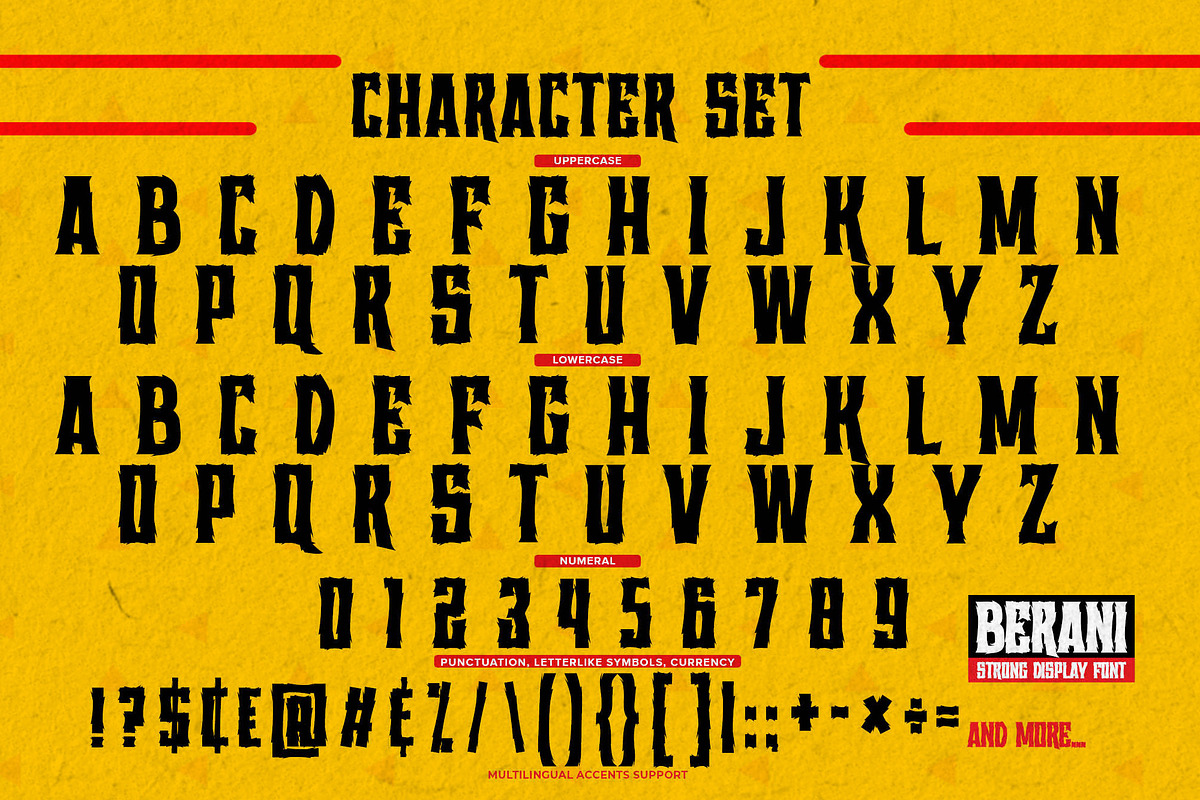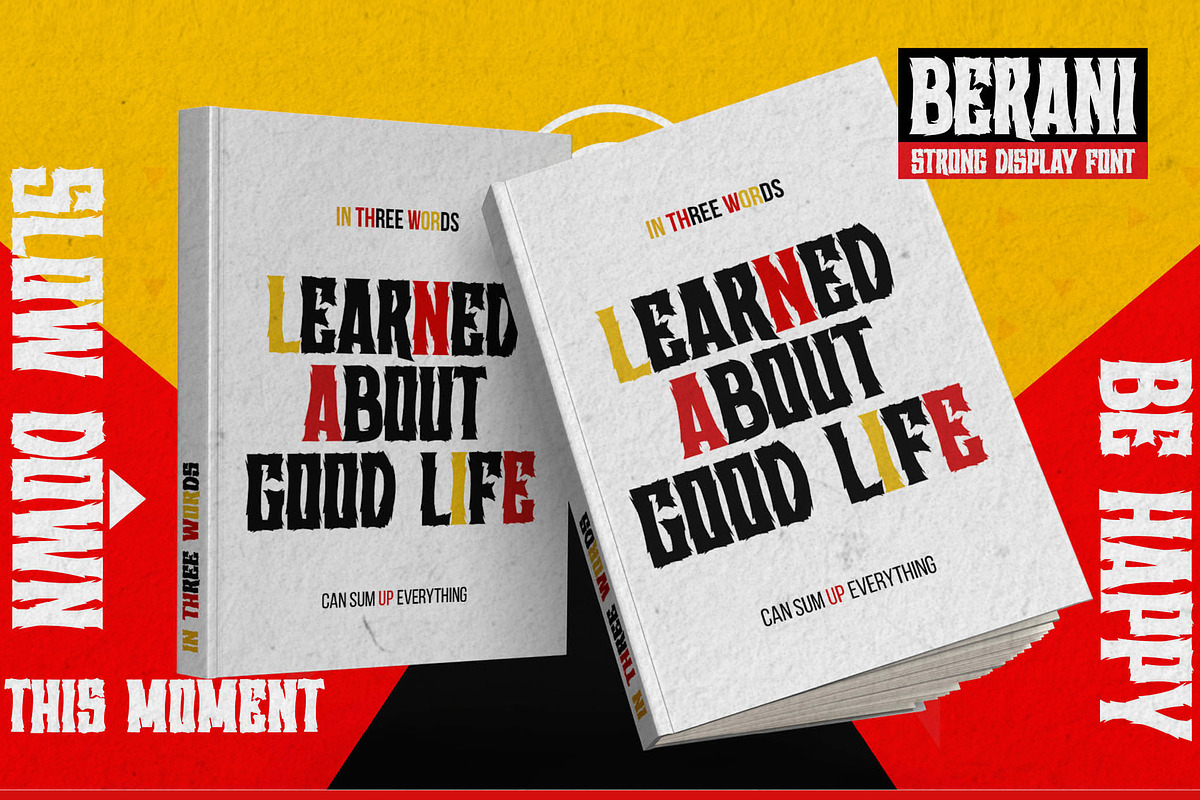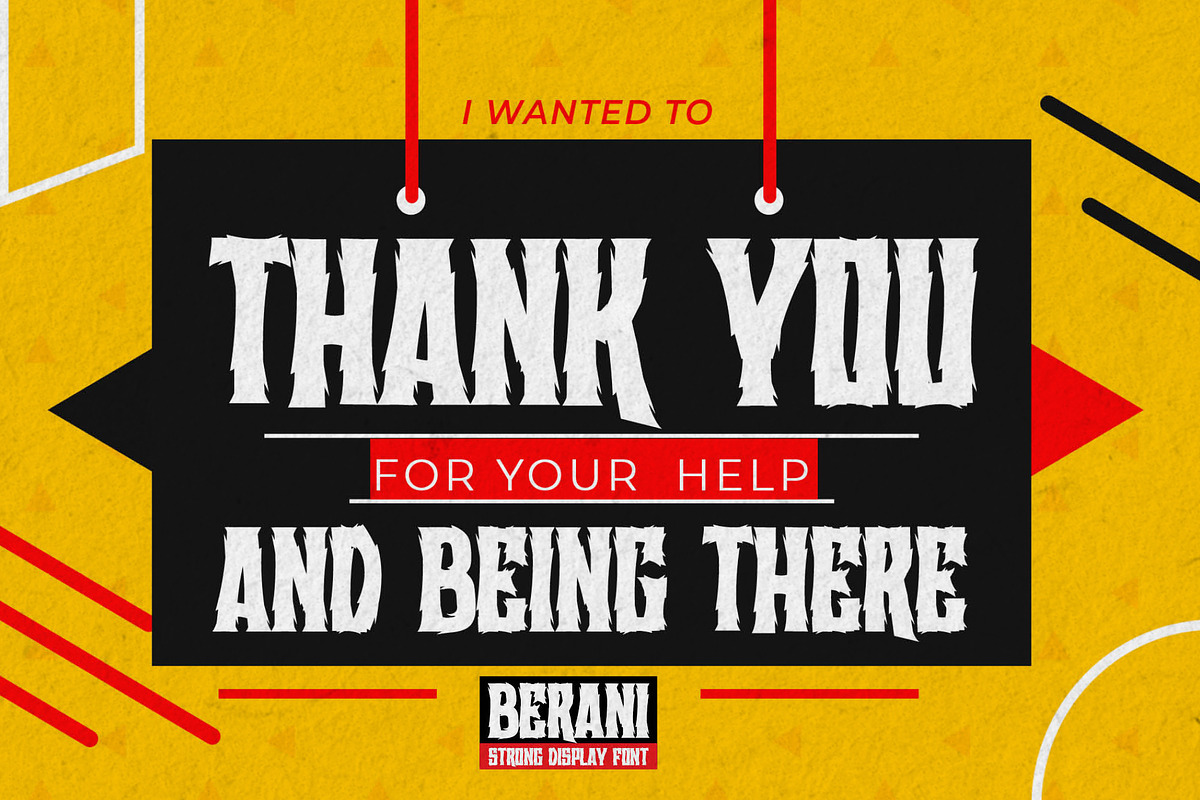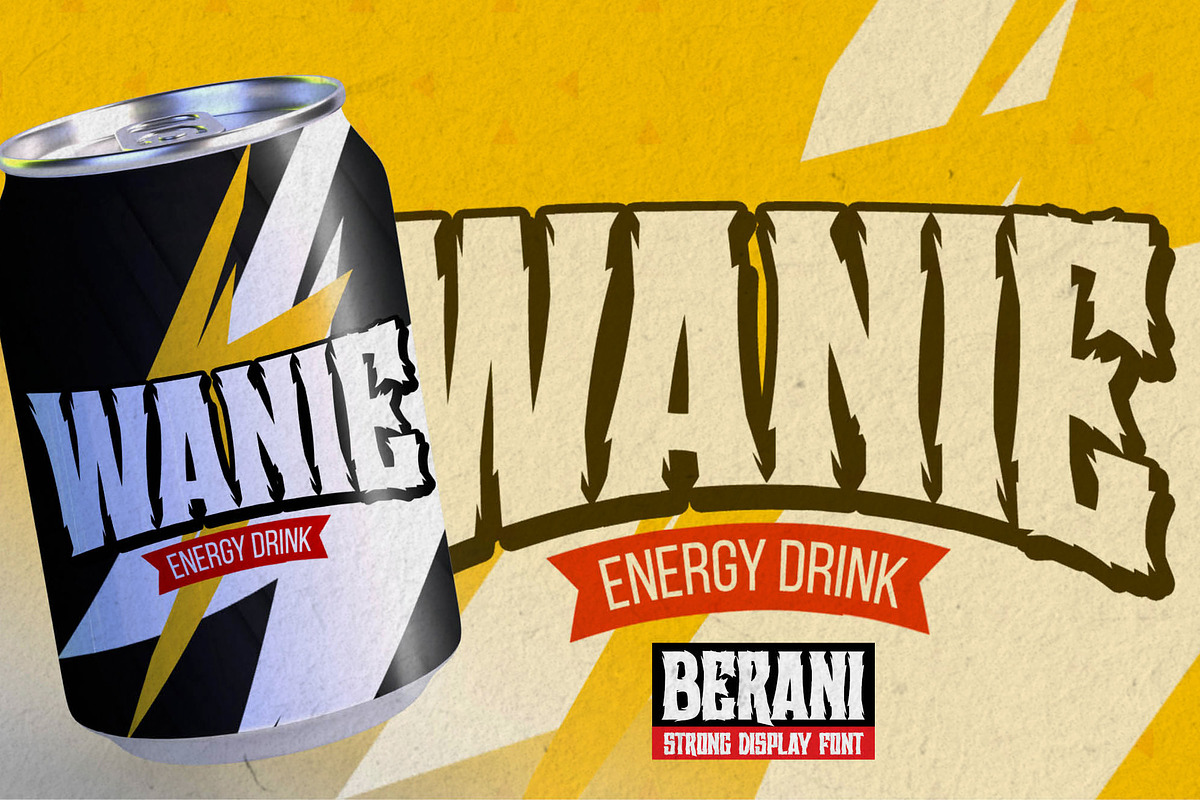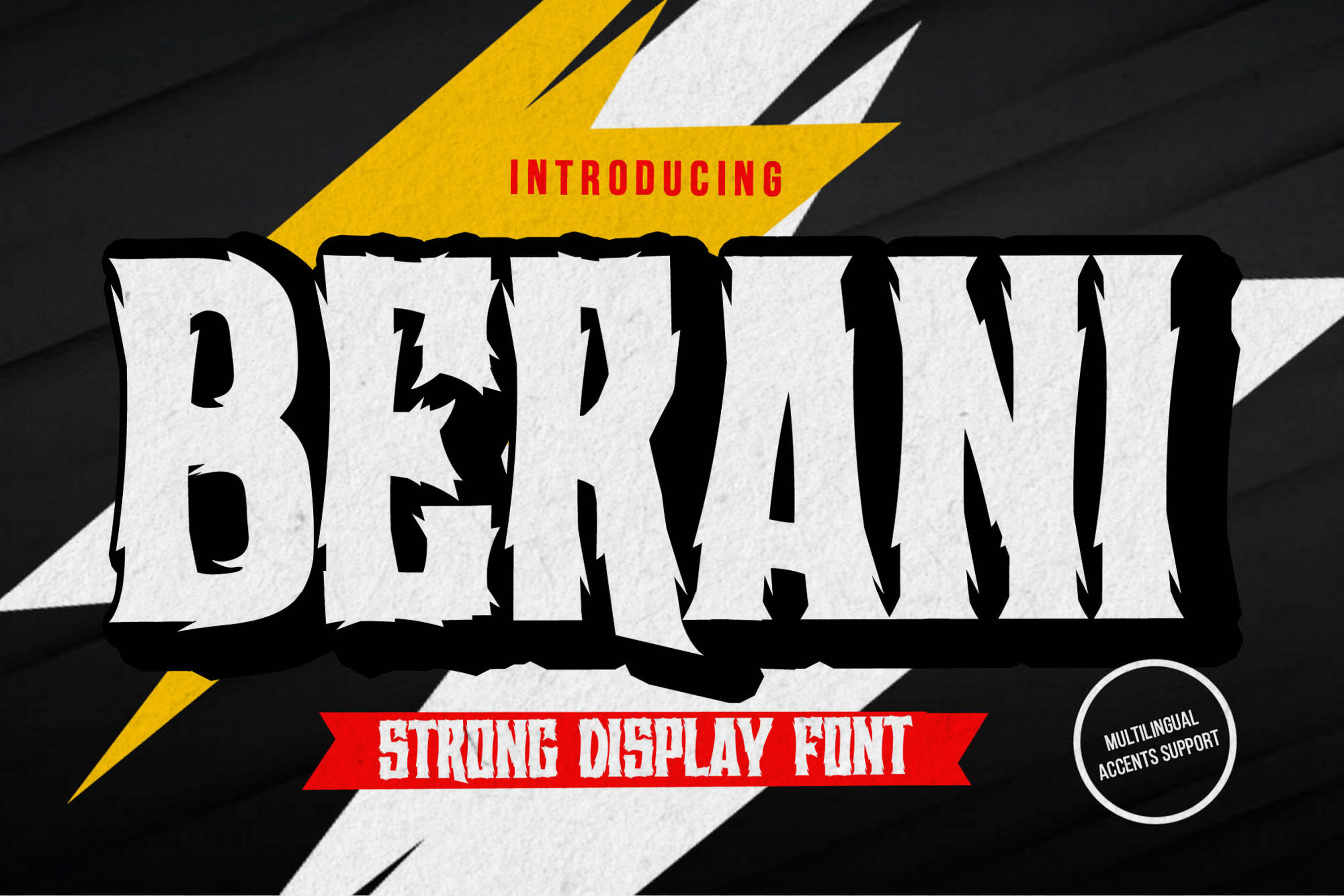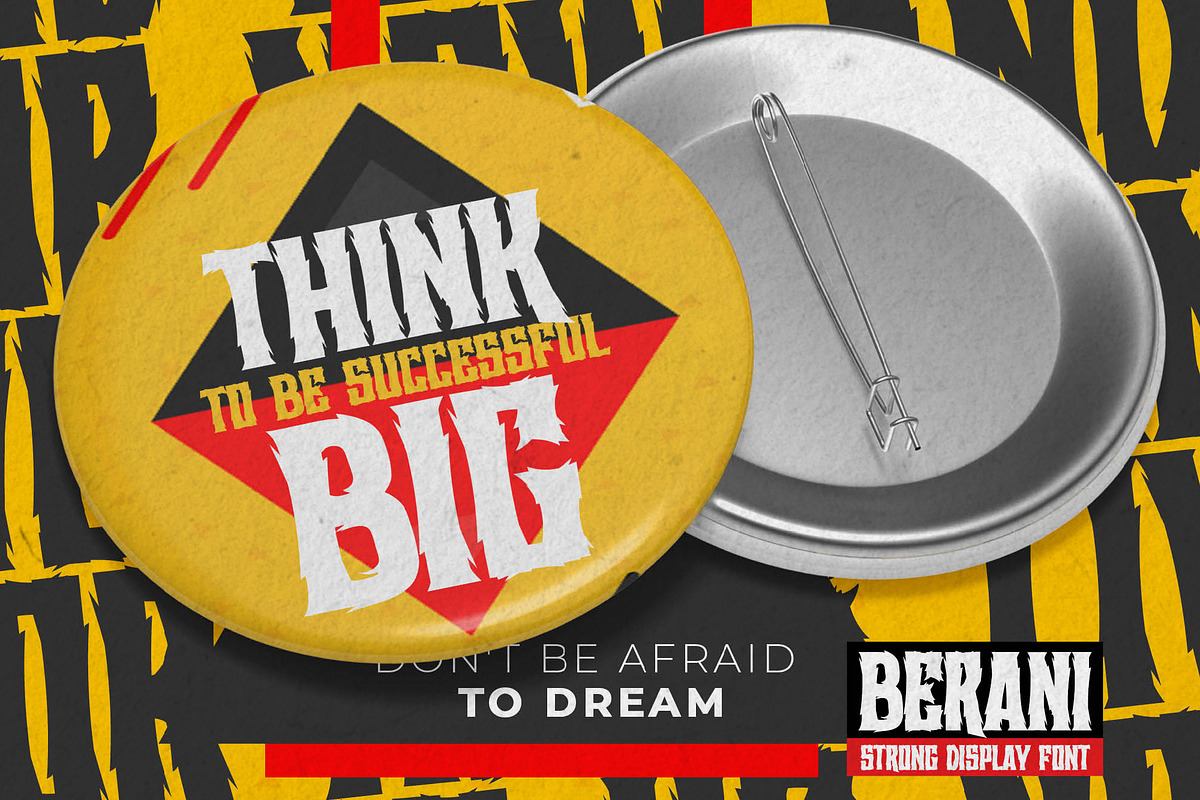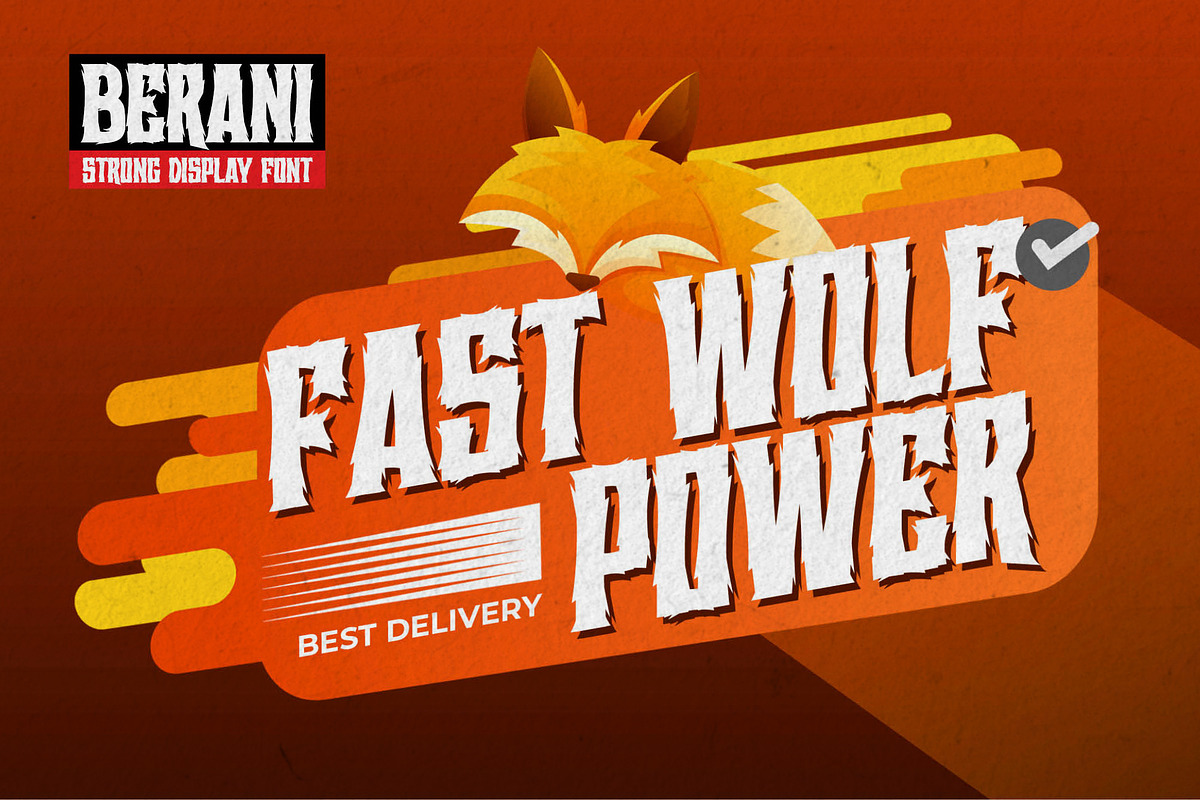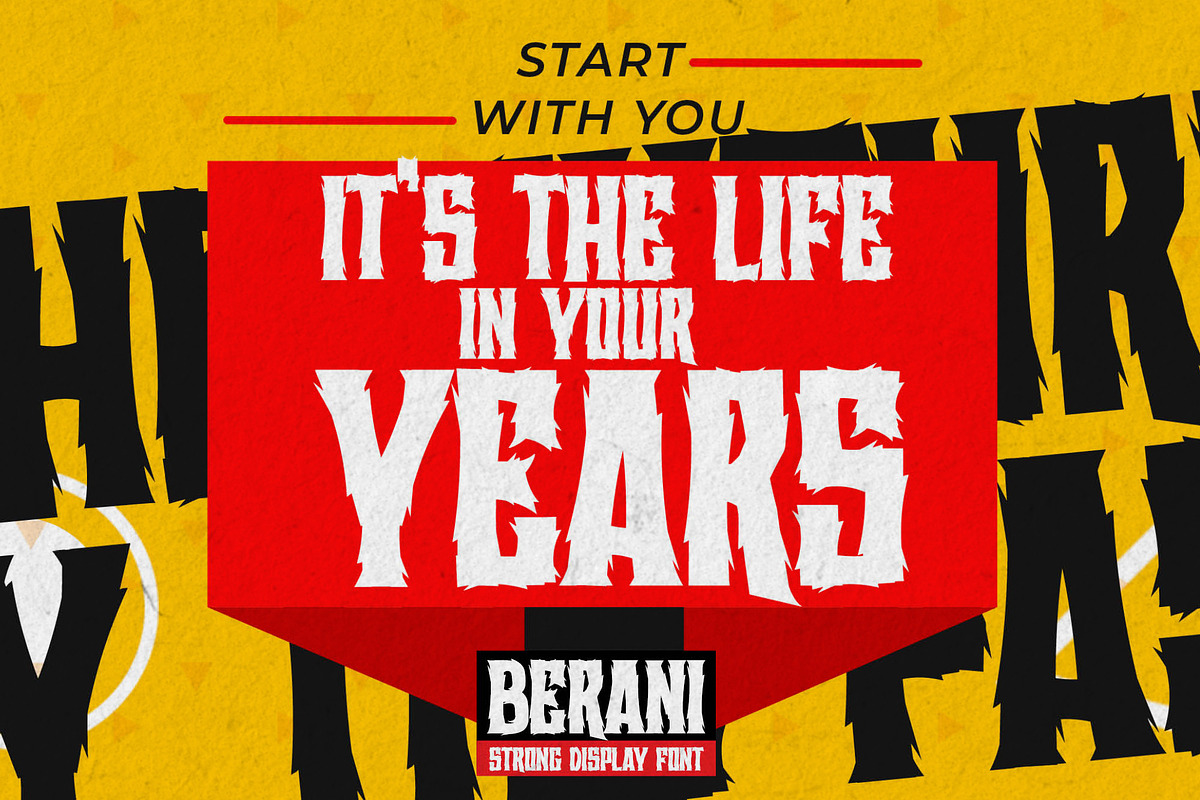
BERANI - Strong Display Font
Hello Everyone, Introduce our new collection BERANI is a Strong Display Font that is written casually and quickly. Letters are made with brushes on Procreate. Then crafted carefully drawn into vector format. That is why BERANI has charming, authentic and relaxed characteristic more natural look to your text with a more natural look to your text. design more interesting. BERANI is perfect for homeware designs,branding projects, Logo design, Quotes product packaging.